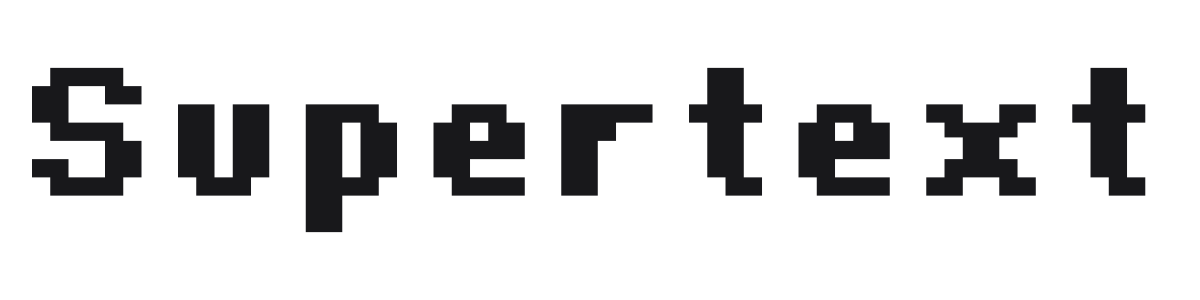
Supertext
Supertext is a bold bitmap pixel font built on a coarse grid, channeling the look of early video game and home-computer typography. Every character is assembled from rectangular blocks with no attempt at smooth curves, giving it an unapologetically lo-fi, 8-bit character. It works best large, where the pixel structure reads as intentional style rather than technical limitation.